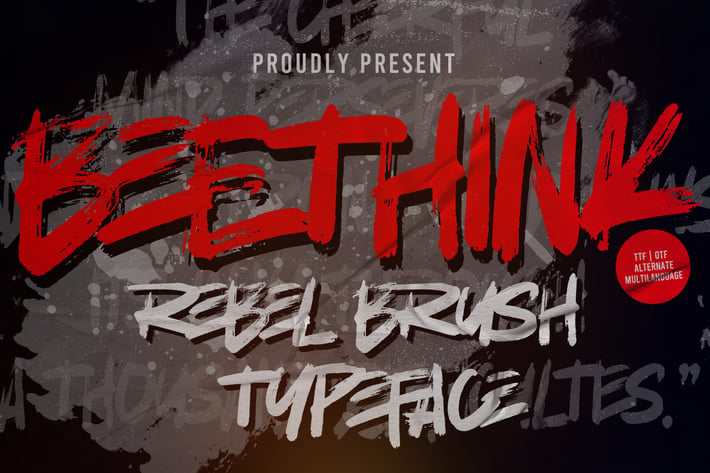
Bee Think - Rough Brush Typeface
Bee Think. This is a Rough Brush Typeface that is written casually and quickly. comes in two mode Standart and italic.
this font are made with brushes on Procreate. Then crafted carefully drawn into vector format.
That is why Bee Think has Rough and strong characteristic more natural look to your text with a more modern look to your text.
You can activate Ligature OpenType panel to make these two styles.
Bee Think is perfect for homeware designs,branding projects, Logo design, Quotes product packaging, especially with horror and scary themes